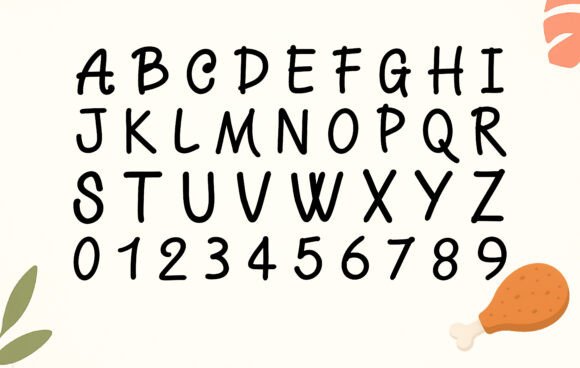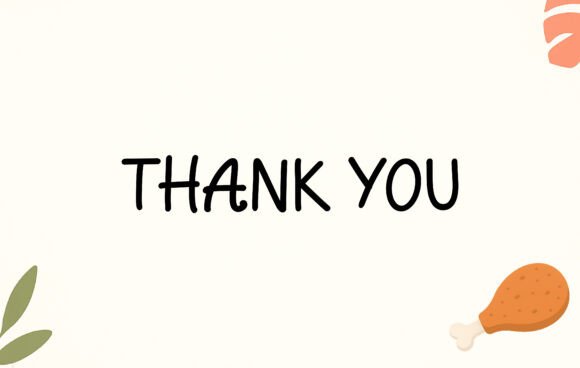
Scratching Out the Perfect Font
Have you ever been in the middle of a design project, staring at a blank screen, and suddenly the perfect font pops into your head? That’s exactly what happened to me when I was working on a farm-to-table brand. I envisioned a friendly, approachable logo that would make customers feel like they were sipping fresh milk from a cow. And that’s when I stumbled upon Chicken Font – a fun, colorful, and rounded typeface that’s as charming as a sunny farm day.
Chicken Font is more than just a pretty face; it’s a versatile tool for designers looking to add warmth and personality to their projects. Whether you’re creating a kids’ menu, a playful packaging design, or a farm-to-table logo, Chicken Font is the perfect companion to help you convey a sense of approachability and friendliness.
With its unique blend of whimsy and sophistication, Chicken Font is a valuable addition to any designer’s toolkit. Its friendly, handwritten feel makes it perfect for a wide range of applications, from food-related branding to kids’ menus and beyond.
Chicken Font Key Features
- Unique Characteristics: Chicken Font features a unique, playful design with a mix of handwritten and cursive elements, making it perfect for creative and informal projects.
Chicken Font Review
At first glance, the Chicken Font may seem quirky and off-putting, but I have to say, it’s grown on me. ✨ The unique design elements, like the rounded letters and irregular shapes, add a touch of whimsy to any text. It’s perfect for brands or designers looking to create a playful, approachable vibe.
- ✨ Great for children’s books, food labels, or any project that requires a lighthearted tone.
- ✨ Works well for short, concise text due to its large x-height and wide letter spacing.
However, the Chicken Font has some limitations that may make it less suitable for certain projects. ⚠️ The inconsistent letter spacing and irregular shapes can make it difficult to read in long blocks of text. Additionally, the font’s uniqueness may not be to everyone’s taste.
- ⚠️ May not be ideal for formal or professional settings due to its playful nature.
- ⚠️ Can be challenging to use in combination with other fonts, as its unique design elements may clash.
Overall, the Chicken Font is a fun and quirky addition to any designer’s toolkit. While it may not be suitable for every project, it’s perfect for those looking to add a touch of personality and whimsy to their designs.
Getting the Most Out of Chicken Font
To get the most out of Chicken Font, try the following tips:
- Use it in bold or italic styles to add emphasis to your text.